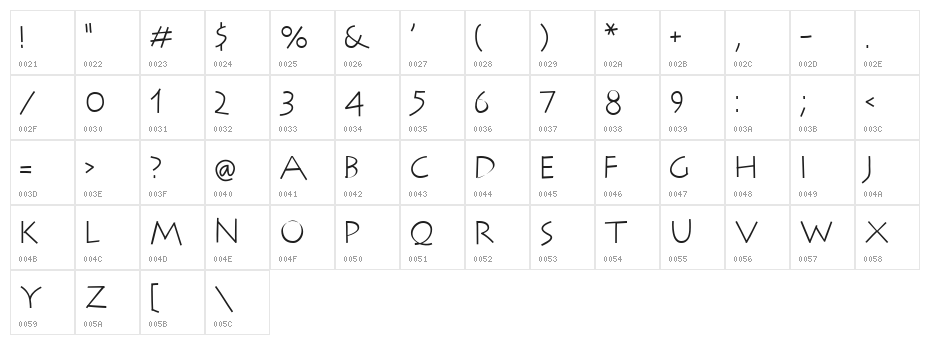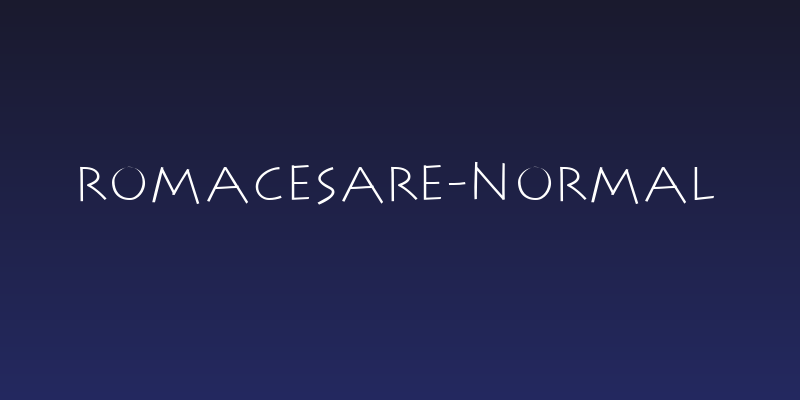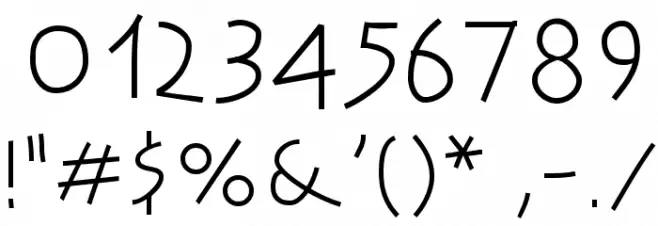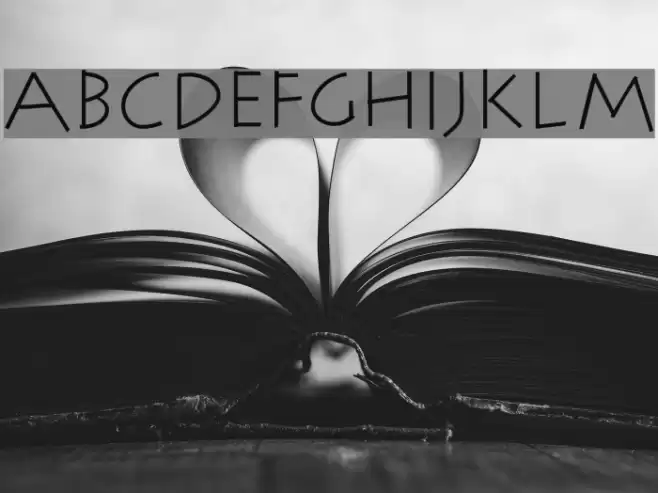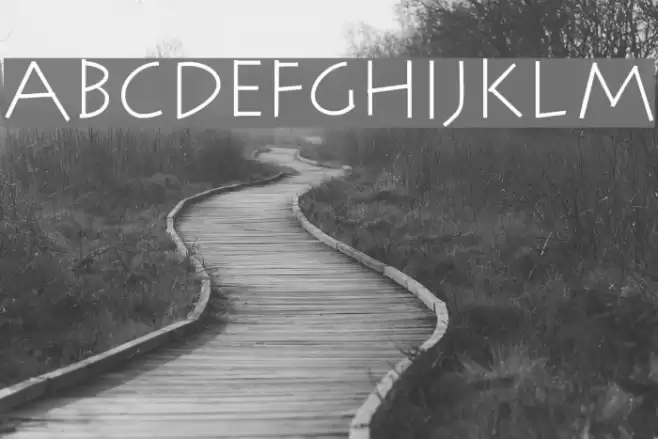
RomaCesare-Normal Font
This font features a distinctive and elegant style with a slight slant, reminiscent of ancient Roman inscriptions. The characters are clean and sharp, with a subtle flair that adds a touch of sophistication. The uppercase letters are particularly striking, with a consistent height and balanced proportions. The lowercase letters maintain a similar aesthetic, offering a harmonious blend with the uppercase set. The numerals are clear and easy to read, with a uniform width that complements the overall design. Special characters are thoughtfully crafted, maintaining the font's cohesive style.
| Overall Style | Classic |
| Proposed Projects | Ideal for projects that require a classical or historical touch, such as book covers, posters, or branding for luxury products. |